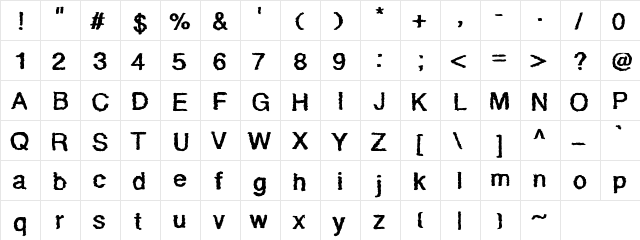
Quaky Medium
Design Context for Quaky Typeface
Quaky offers clean, dependable letterforms without strong stylistic allegiance, making it a practical choice for designers who need flexibility.
Pro Tip: Use Quaky in both headline and body roles to test its range before committing to a single application.